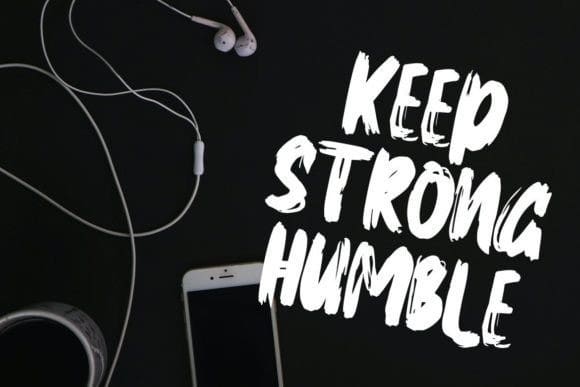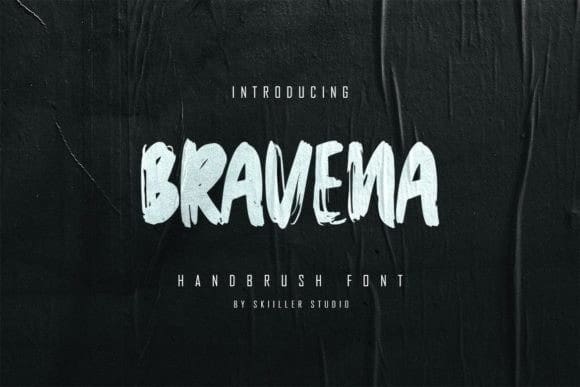
Bravena Brush Font
Bravena Brush Font is a modern and brushed display font, crafted to give your headlines and logotype projects a stylish touch. This font reads as strong, confident, and dynamic and can add tons of urban character to your designs.